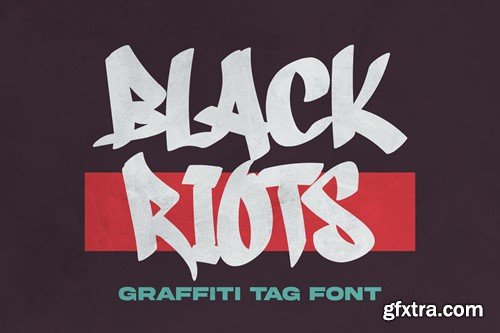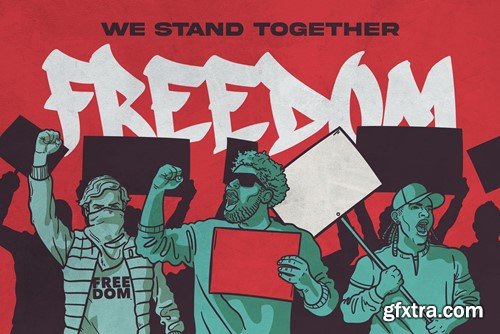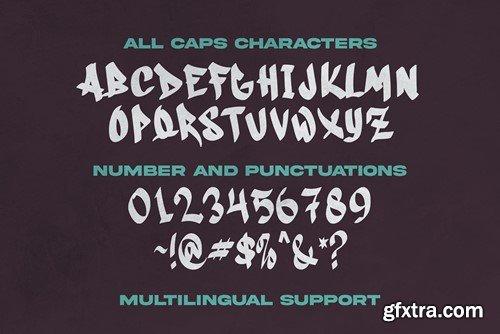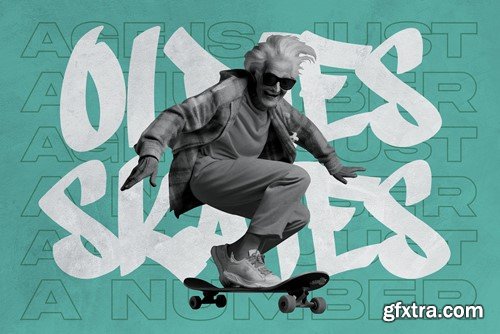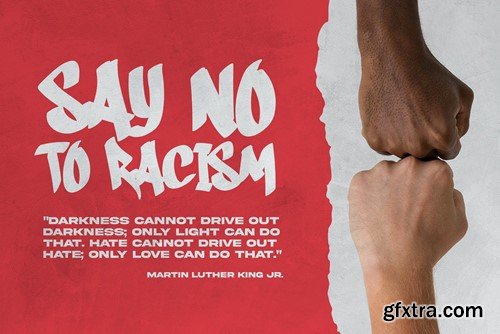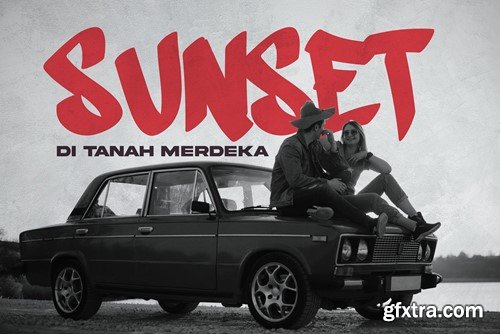
黑人暴动 - 涂鸦标记字体 782BJTK
Black Riots is an intense and rebellious graffiti tag font that captures the unapologetic spirit of street art. With its bold, chaotic lettering, it's the perfect choice for projects that demand an edgy, urban, and impactful style. Whether it's for posters, street art, or designs that require a raw and unfiltered aesthetic, Black Riots injects a fierce, graffiti-inspired vibe into your typography, leaving a powerful mark and conveying messages of social change and resistance. File Included: Features: That's it! If you have any questions don't hesitate to ask! Stay Classy!